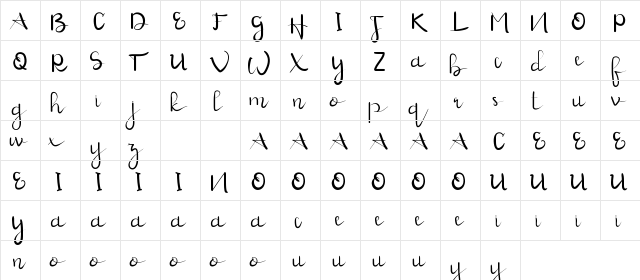
Hazelnut Smooth Demo Handwriting Regular
Design Context for Hazelnut Smooth Demo Handwriting Typeface
Hazelnut Smooth Demo Handwriting brings a calligraphic fluidity to the page — its connecting strokes and expressive curves give it an unmistakably human quality.